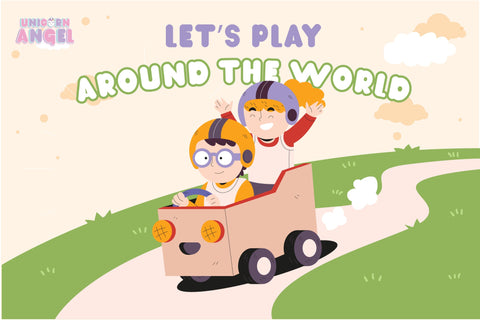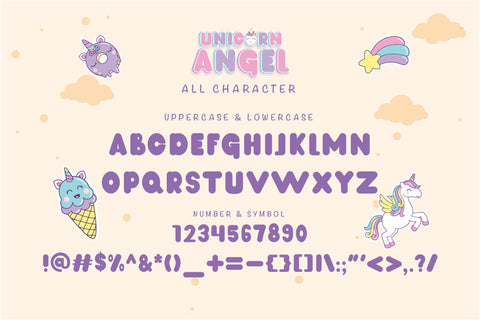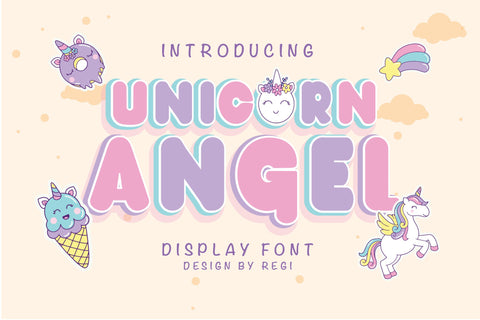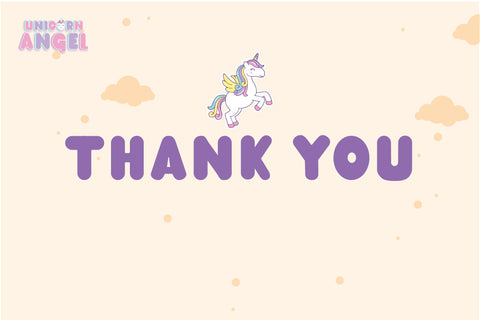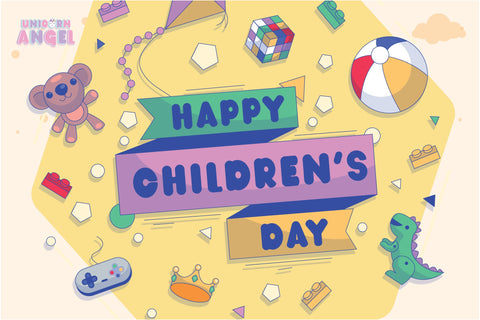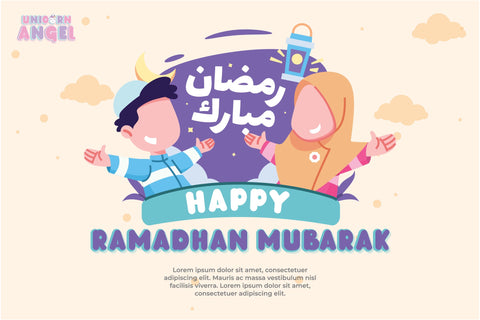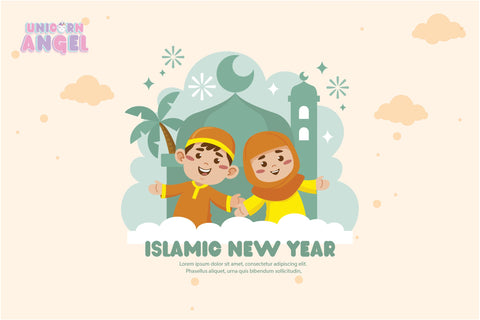
Unicorn Angel Display Font
Unicorn Angel Display Fontis a design font with a kids style that can enhance the quality of your designs.
Unicorn Angel Display Font – This Font is perfect for designs, logos, social media, brands, advertisements, product designs, handwritten quotes, product packaging, headers, posters, merchandise, and other designs.